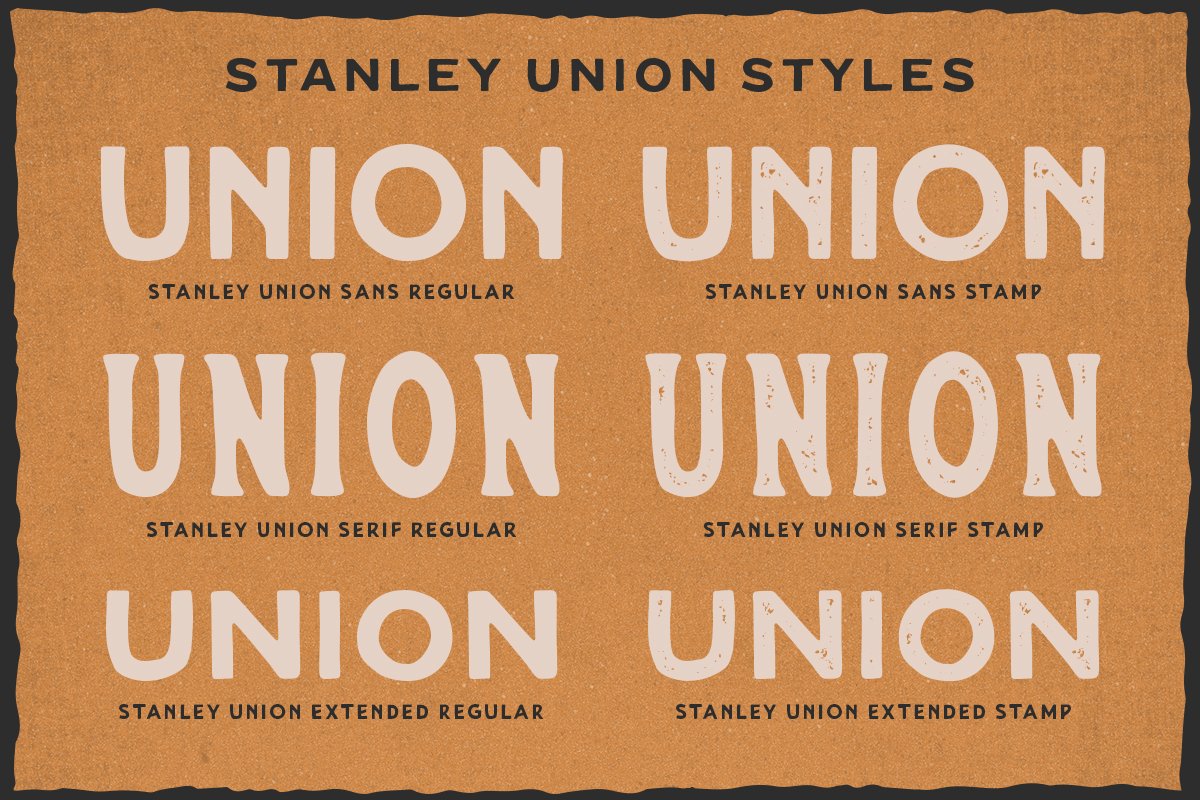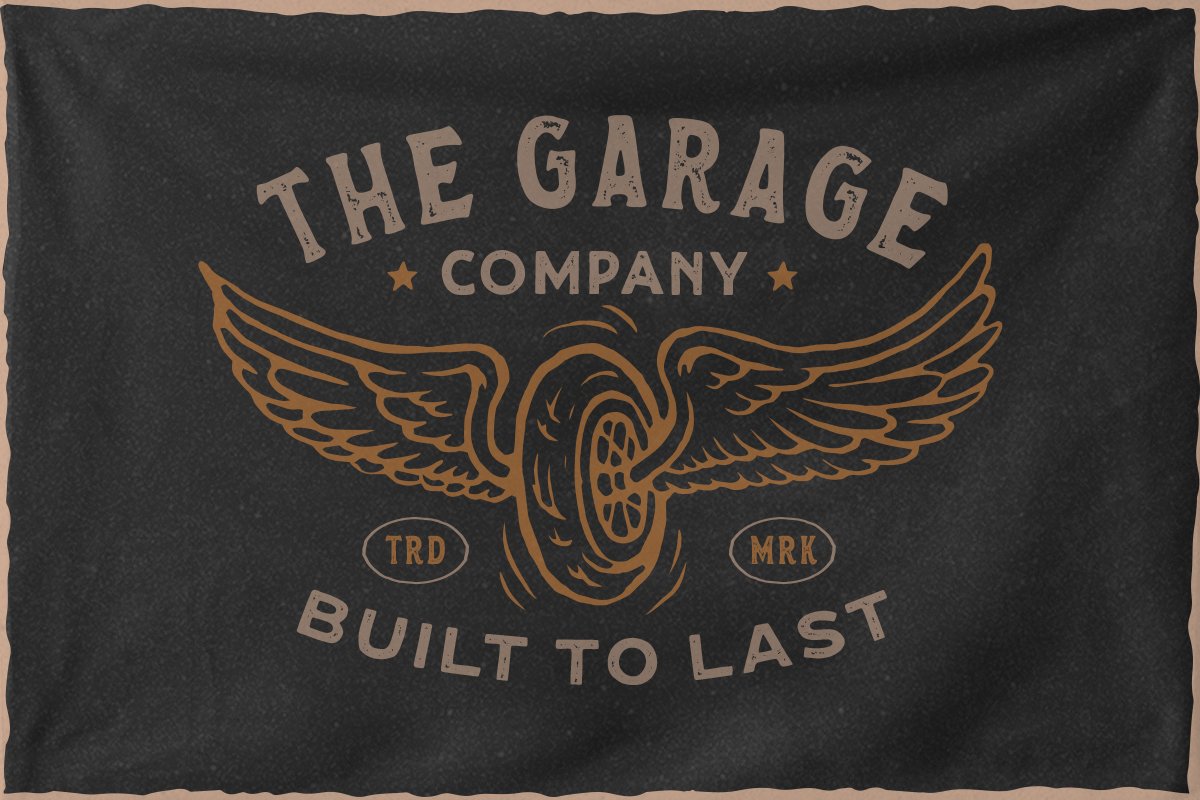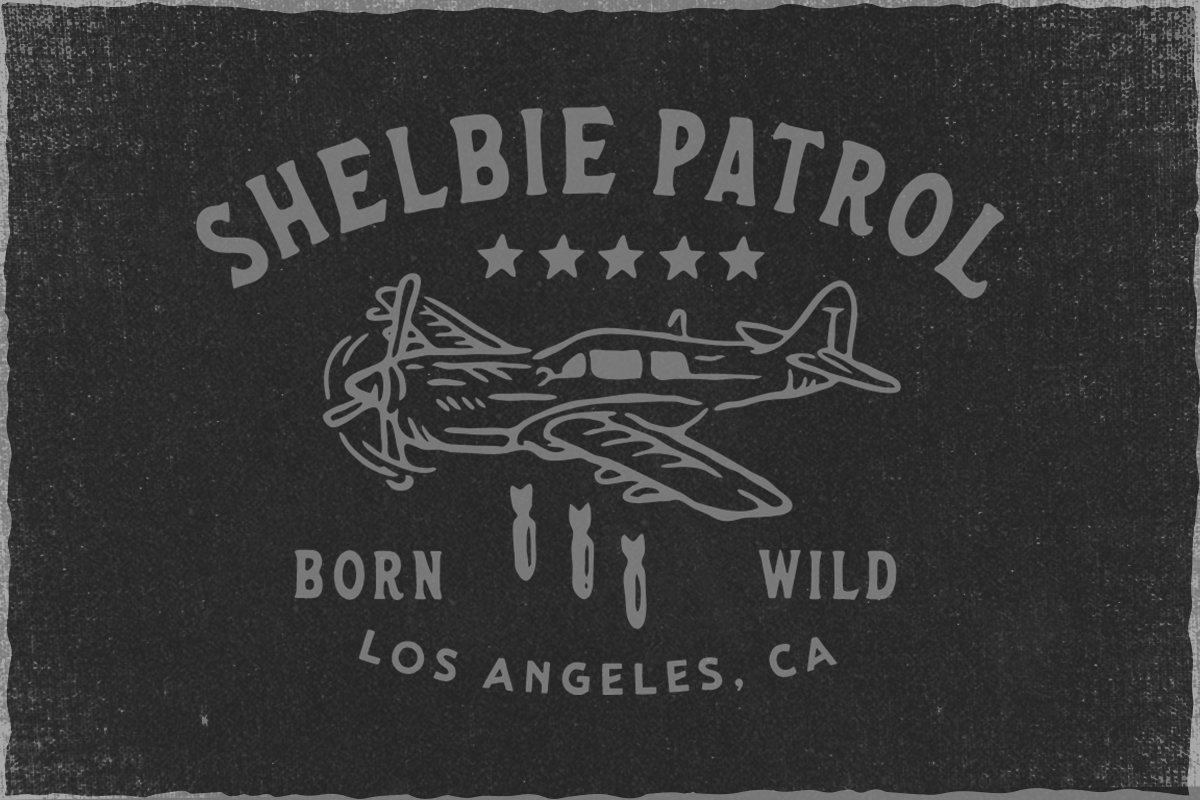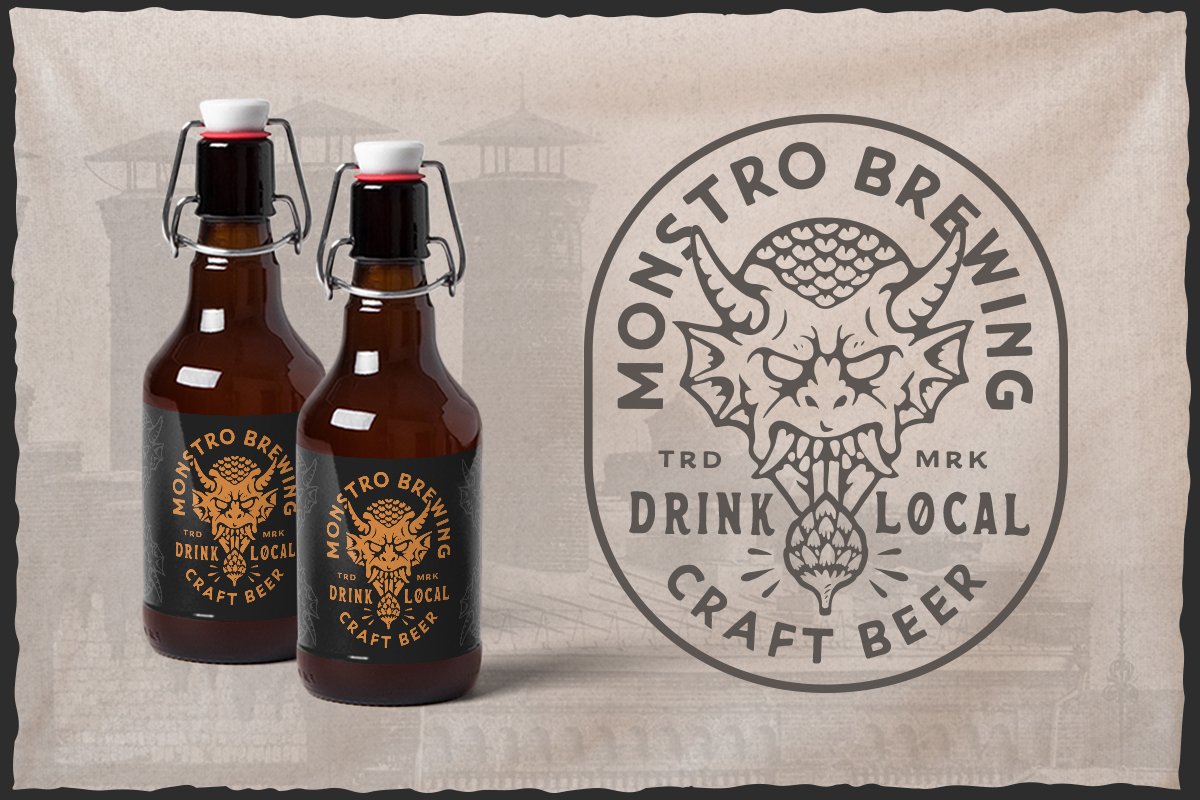
About the Stanley Union Extras Font
Stanley Union is a font bundle consisting of serif, sans serif, extended sans and dingbats which is organic and hand-drawn and comes with regular and stamp styles, Also come with FREE illustrations and editable logo to make better design, This typefaces is perfect for people looking for vintage aesthetic and organic feel, What Will You Get :Stanley Union Serif Regular & Stamp (OTF and TTF)Stanley Union Sans Regular & Stamp (OTF and TTF)Stanley Union Extended Sans Regular & Stamp (OTF and TTF)Stanley Union Dingbats (OTF and TTF)Bonus Premade Logo & Illustrations (AI and EPS)NOTE : Please Check the Help File first and for all the characters are also available, accessible in the Adobe Illustrator Glyphs Panel, or in Adobe Photoshop Character Open Type Panel